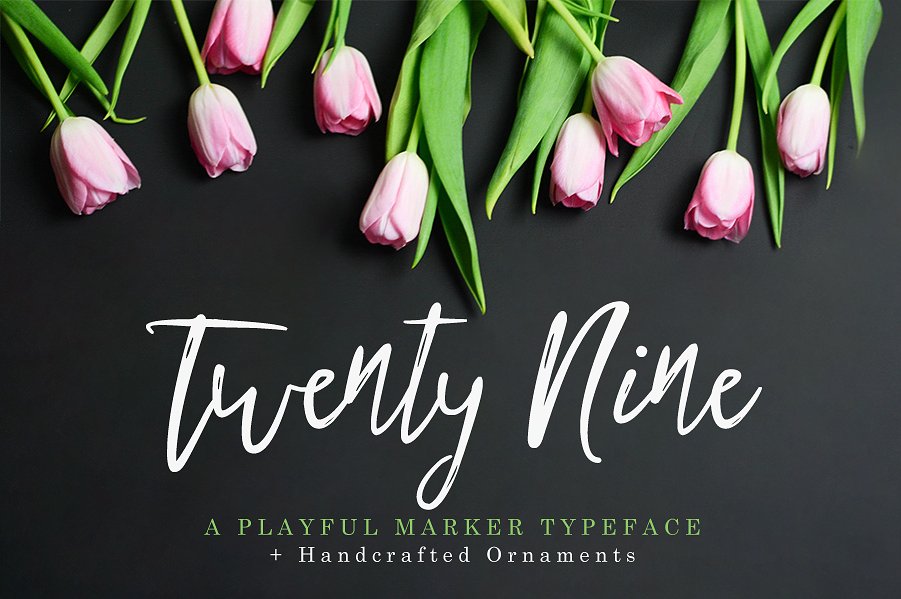
Twenty Nine
Twenty Nine Font
Twenty Nine Font + Bonus
Twenty Nine is a playful and flirty script font with a bouncy baseline and some sweet bonuses! It’s marker brush strokes give it a fun and stylish aesthetic perfect for prints, greeting cards, typography quotes, branding, and more! Plus add the The Bonus Ornaments to your designs and quickly catch your customers eye!
Twenty Nine